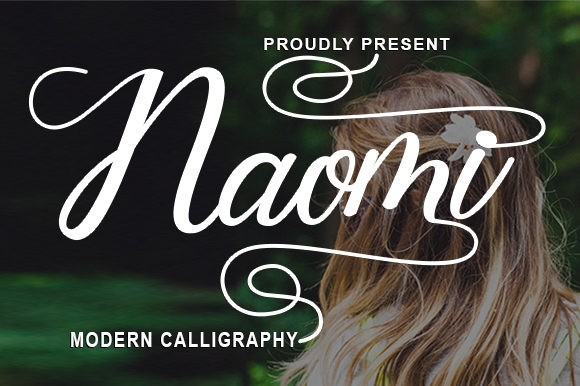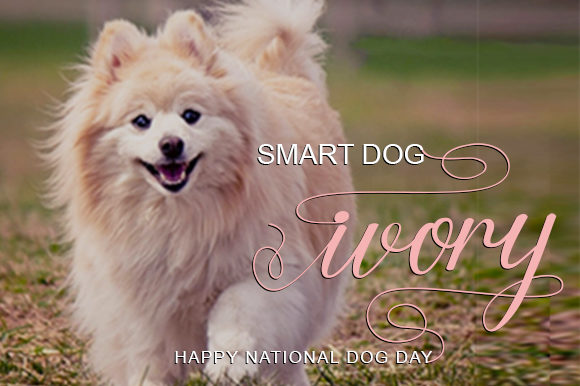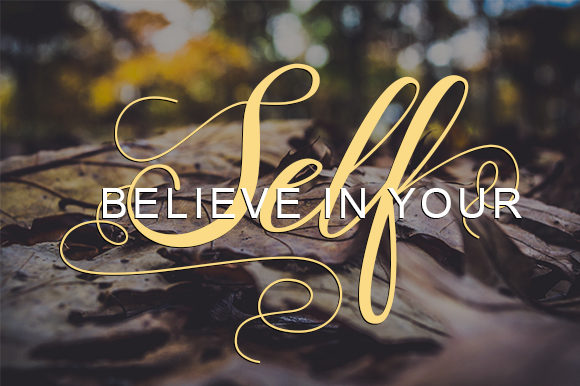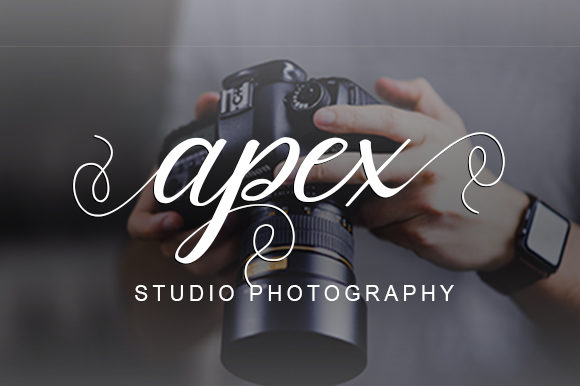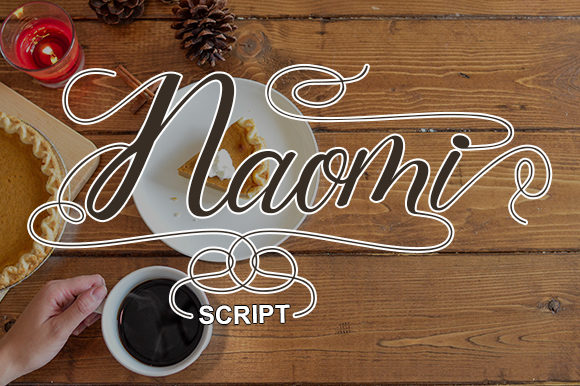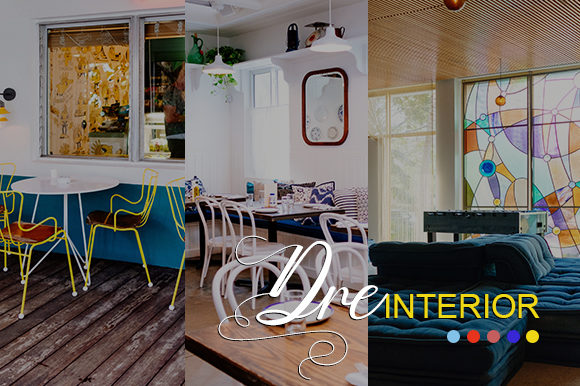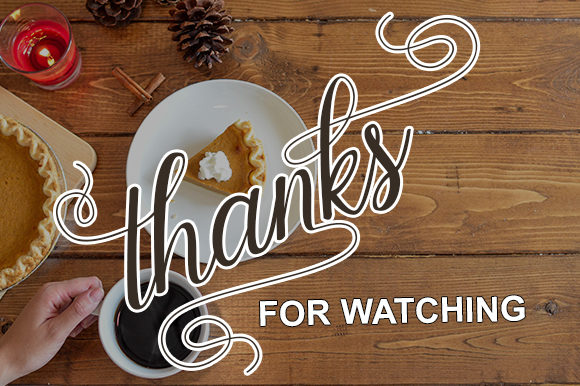
Naomi Font
About Naomi Font
Naomi is an elegant handwritten font with a contemporary twist. Its bold charm will turn any creative idea into a stand out!